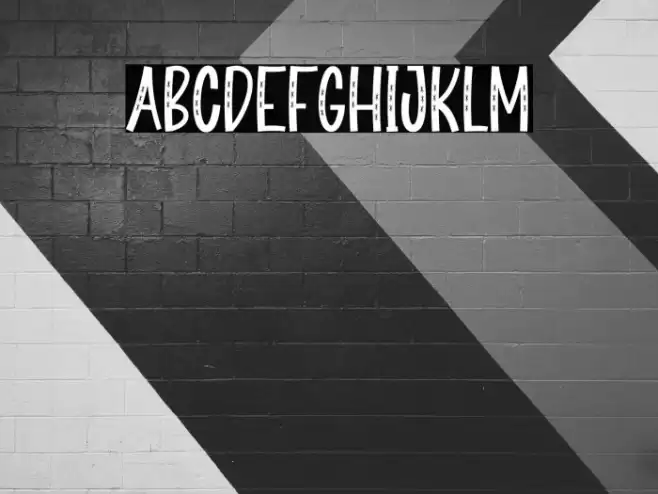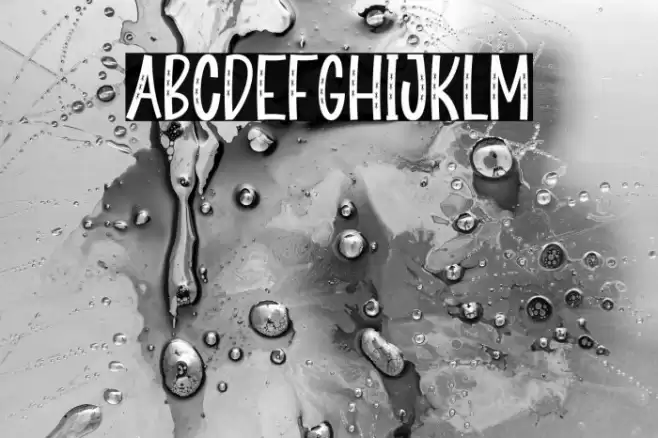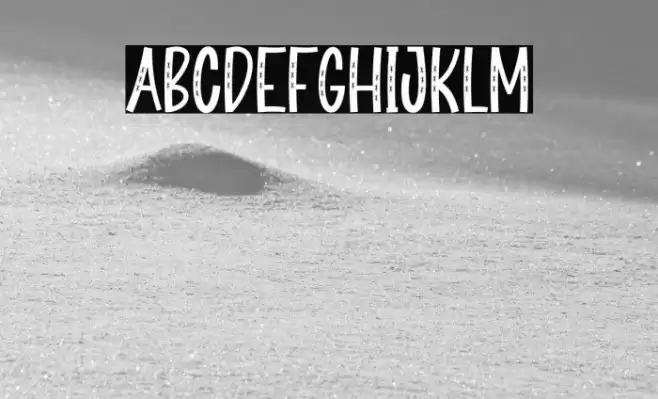
Christmas Starlight Font
Christmas Starlight Description
This font features a playful and festive design, characterized by its decorative and slightly irregular strokes that evoke a sense of whimsy and joy. The uppercase and lowercase letters maintain a consistent style, with a hand-drawn appearance that adds a personal touch. The numbers and special characters are crafted to match the overall theme, making it ideal for holiday-themed projects. The font's unique charm lies in its ability to convey a sense of celebration and warmth, perfect for capturing the spirit of the season.
A playful, festive font with a hand-drawn, decorative style from Christmas (Xmas) fonts.
- Font: Christmas Starlight
- Proposed Projects: Ideal for holiday cards, festive banners, seasonal advertisements, and decorative posters.
- Use Case: Headlines, Logos, Decorative text
Christmas Starlight UPPERCASE
Christmas Starlight LOWERCASE
Christmas Starlight OTHER CHARS